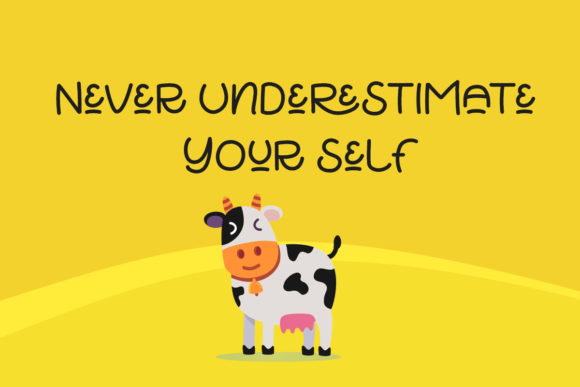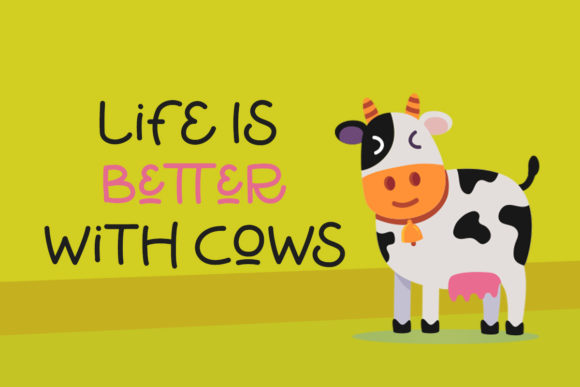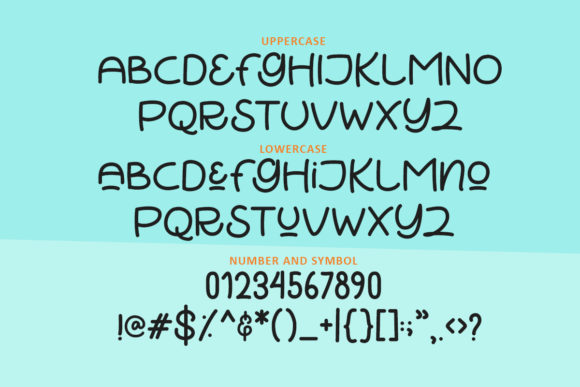
Introduction to Malcow Font
Malcow embodies fun, quirkiness and authenticity.
This enchanting handwritten font will turn any creative idea into a true standout .
Key Features of Malcow Font